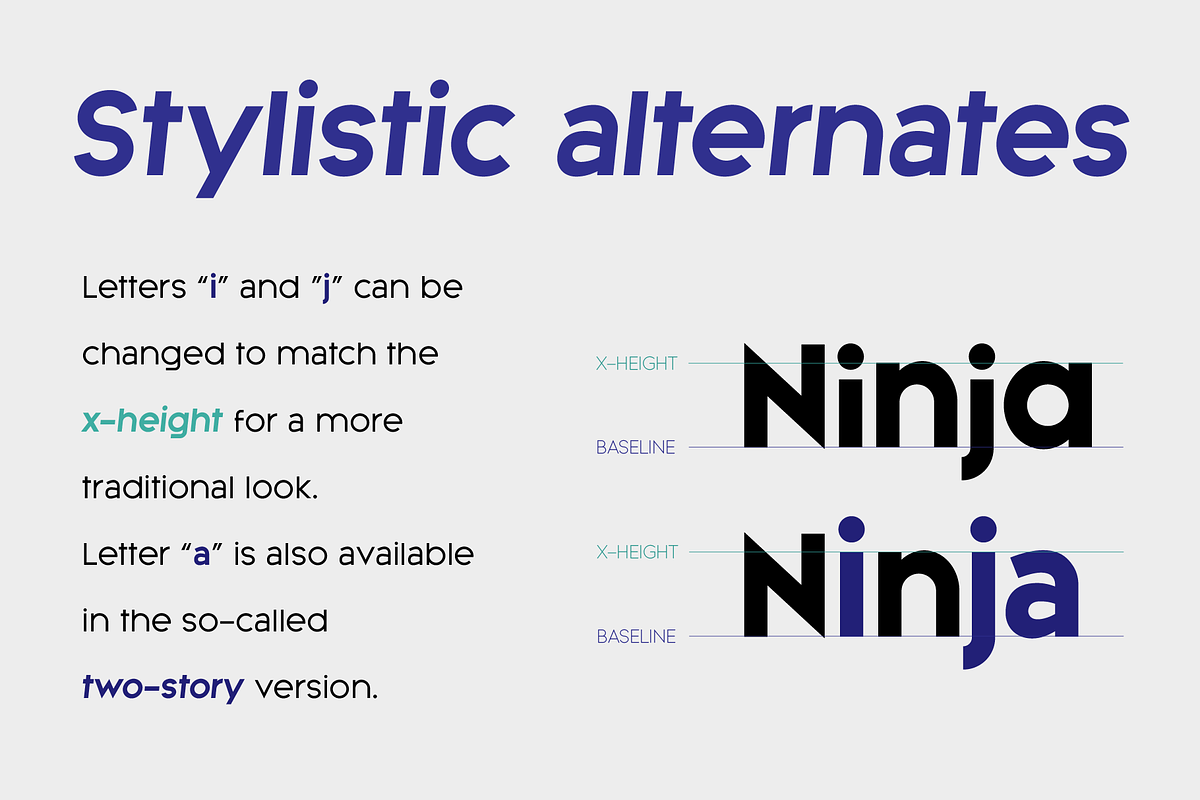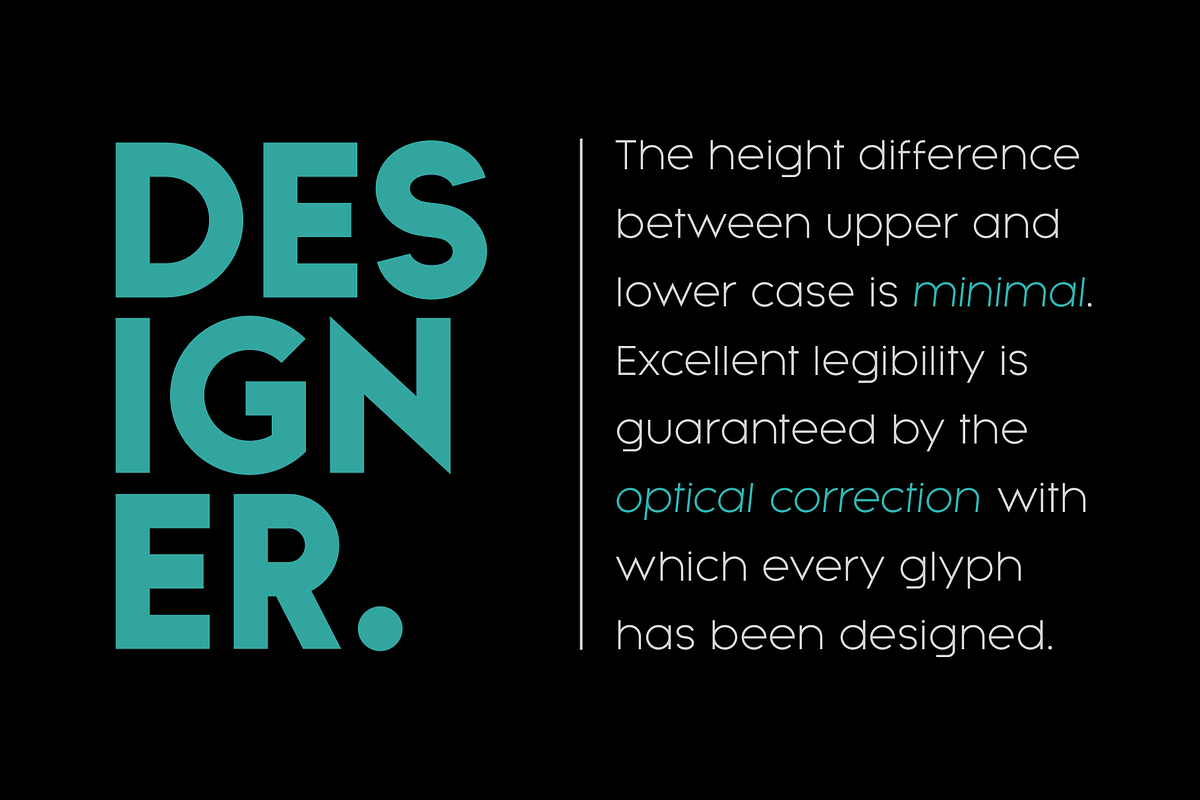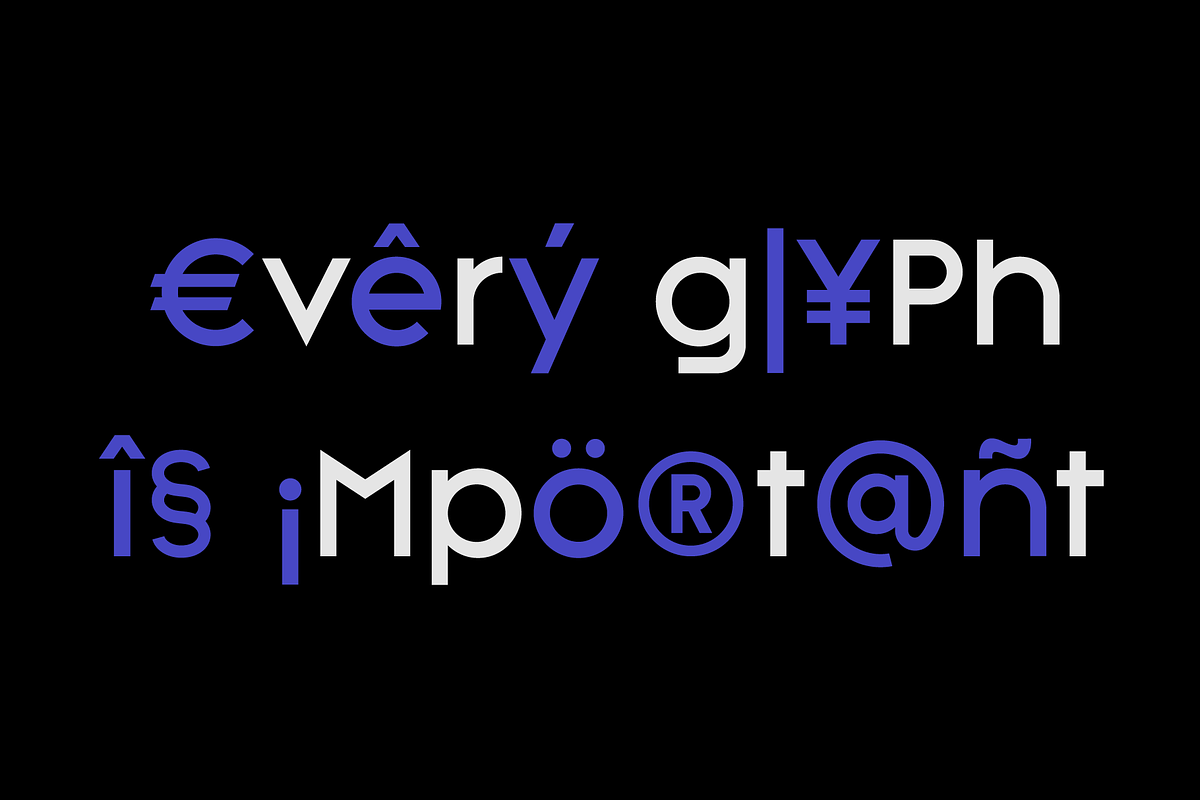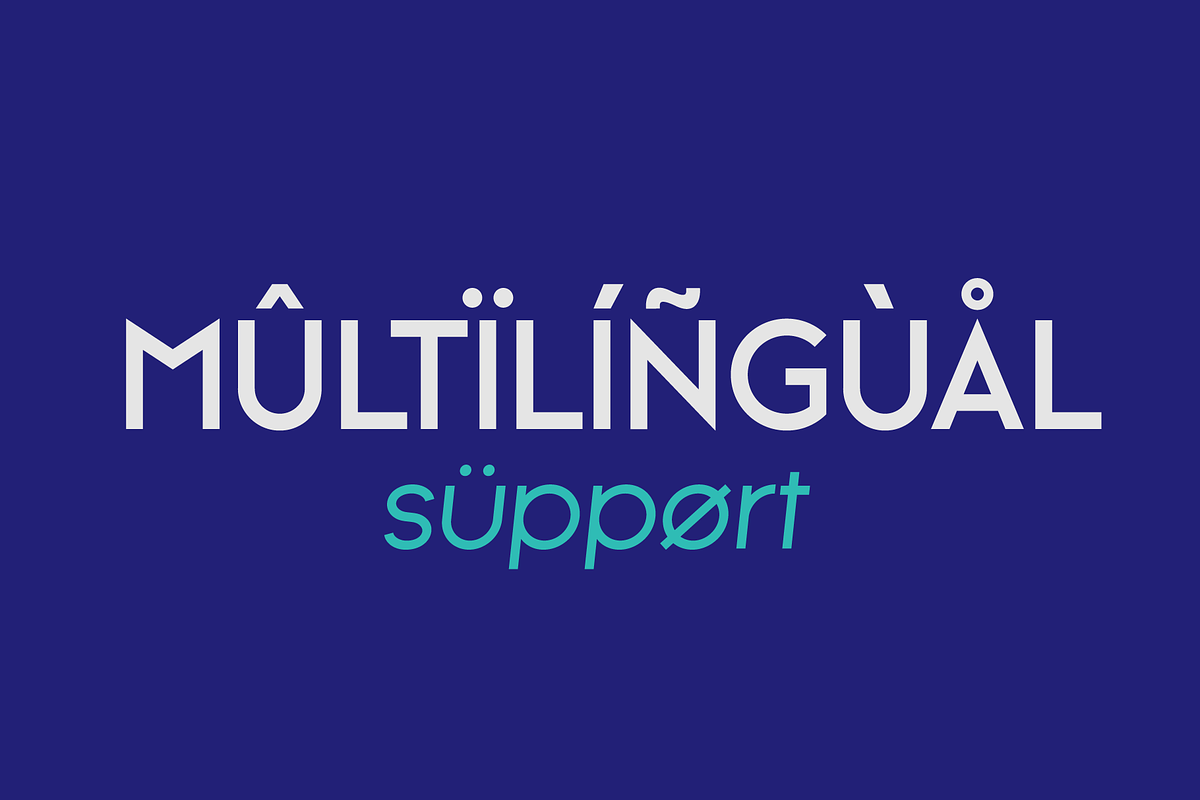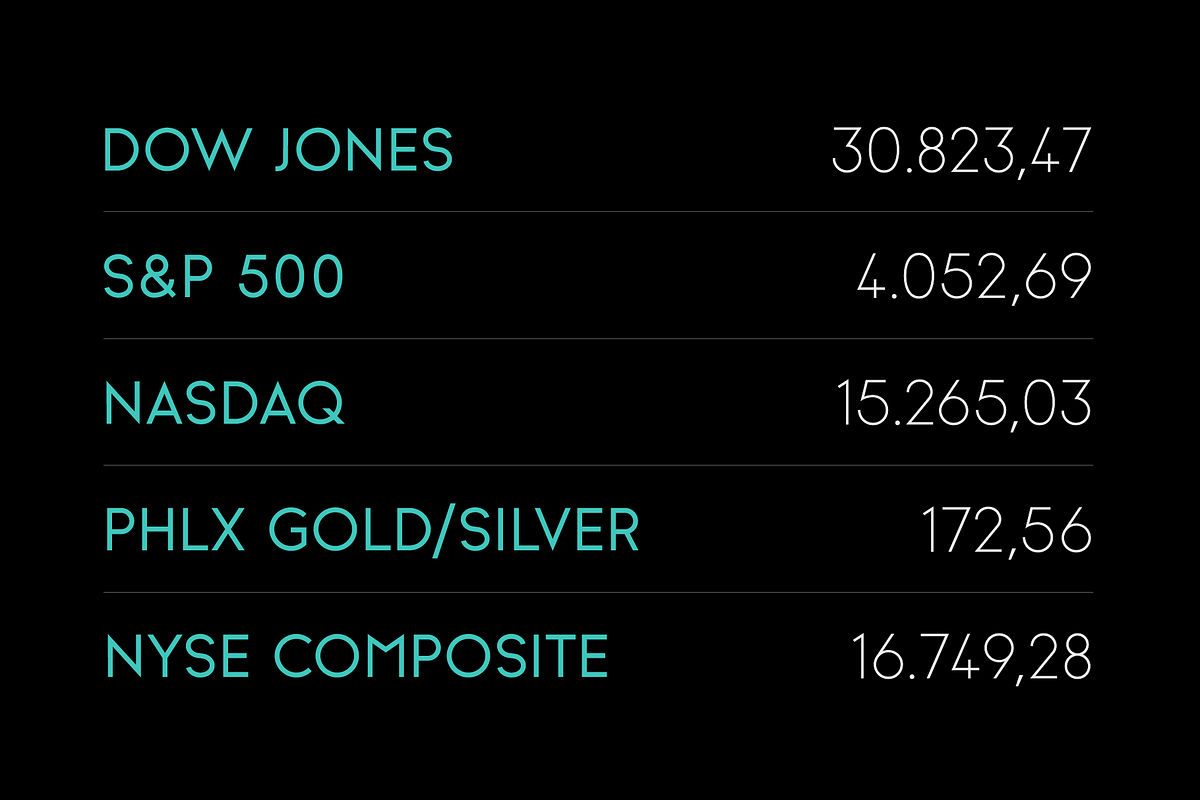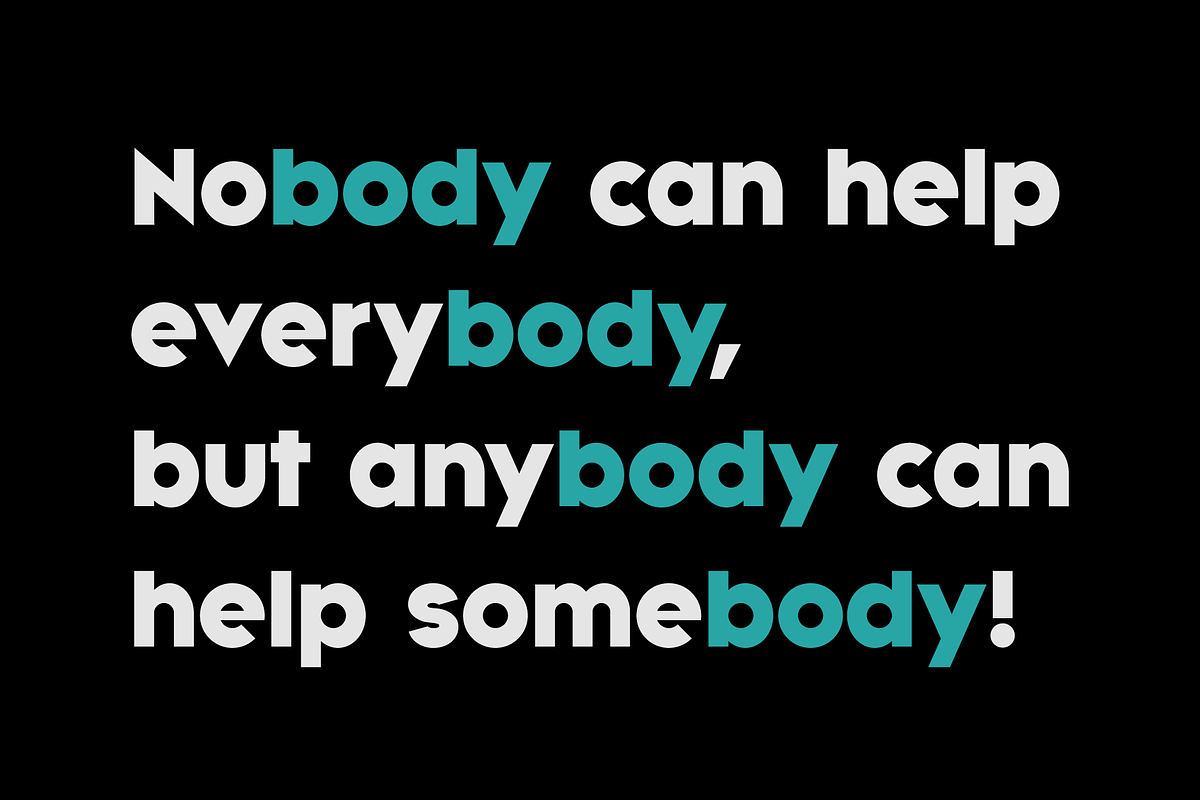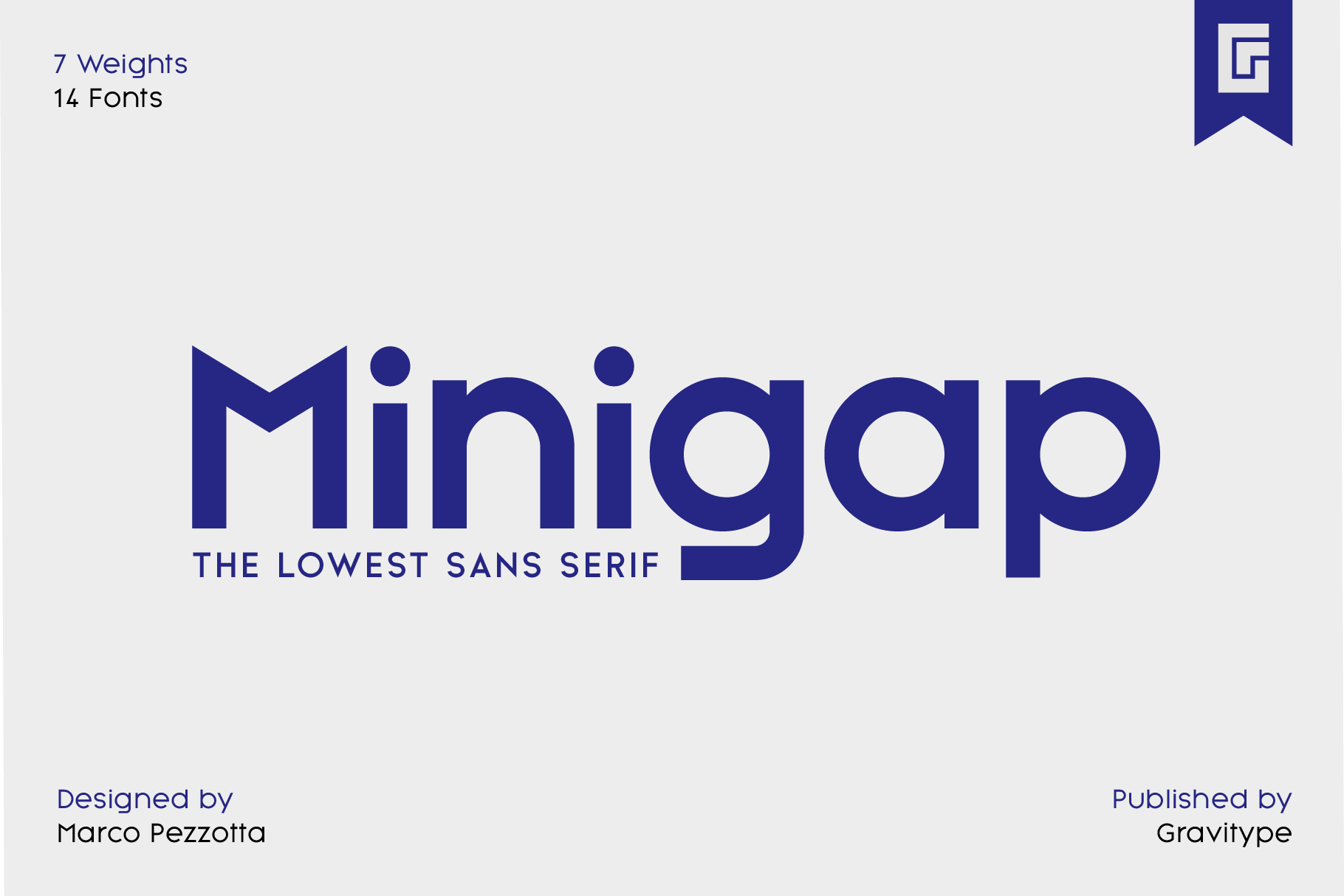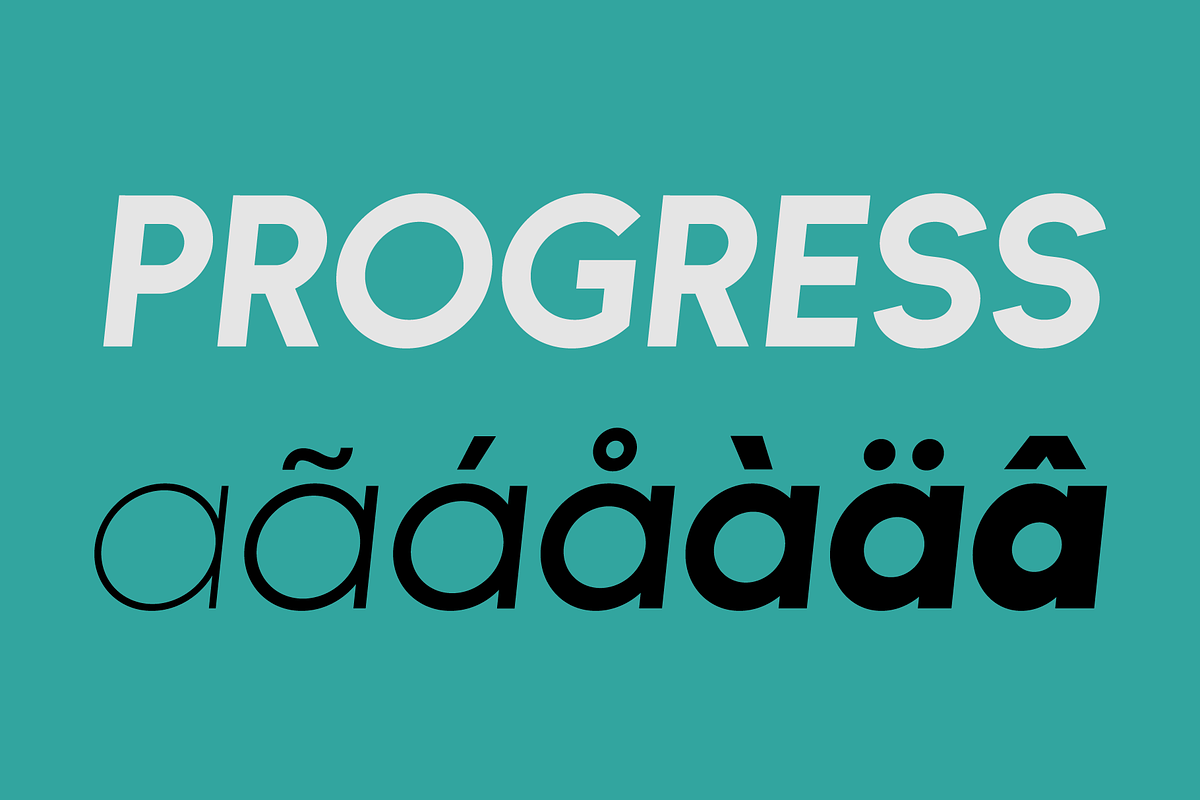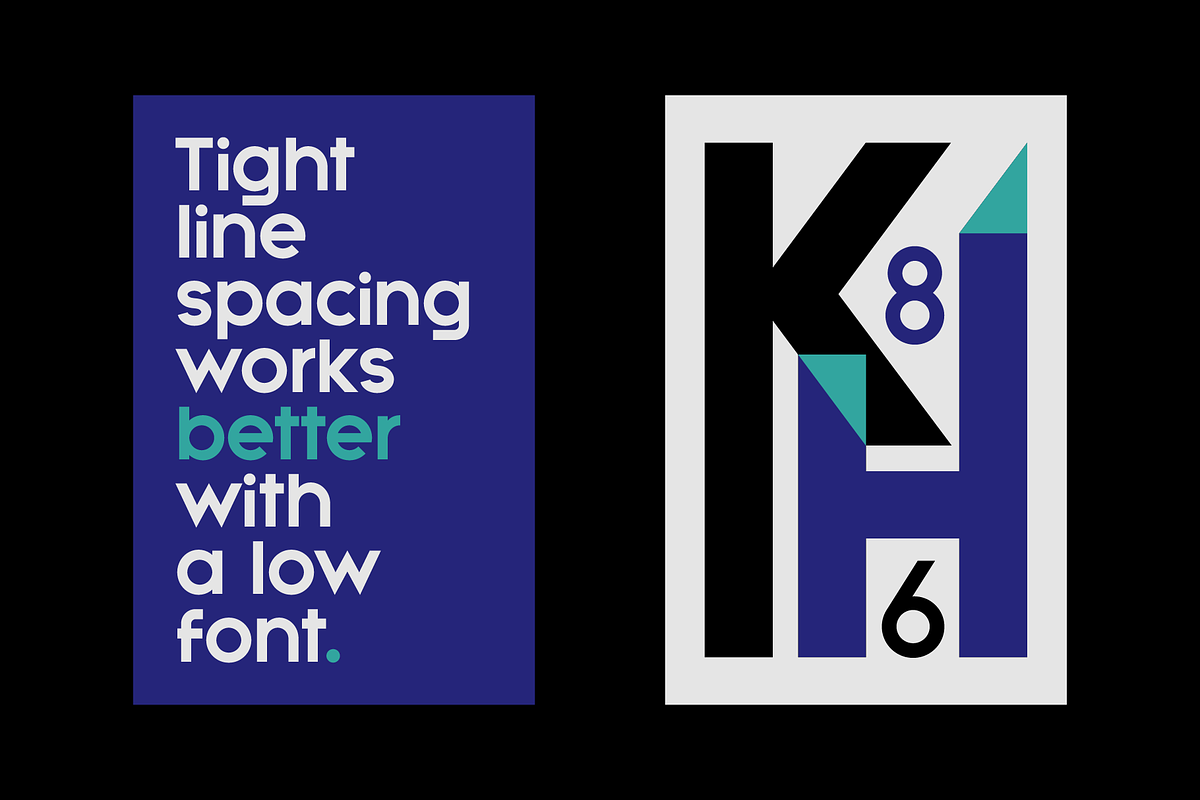
Minigap - Low Geometric Sans Font
Minigap is a geometric sans serif family that has a minimal height difference between upper and lower case. In other words for those who are into typography, it has a very high x-height.
The choice was made to finally have a typeface that could appear very neat, reducing ascending and descending parts of the glyphs (b, d, g, j, l, ...) that could interfere with the lines above and below. All of that without going to extremes in a unicase style but also without renouncing to a great legibility.
This aesthetic, in fact, translates into a pleasant visual effect that creates well-defined lines and enhances the layout, looking excellent also on small screens.
Stylistic alternates are included:
- “i” and “j” can be set to the x-height, to have a more common aesthetic; by default they are set in the lower version, fitting better the purpose of this typeface.
- a two-story “a” is also available, to give you one more customizable option and extend the range of use.
It is available in 14 styles (7 uprights + matching italics) and supports multiple languages.